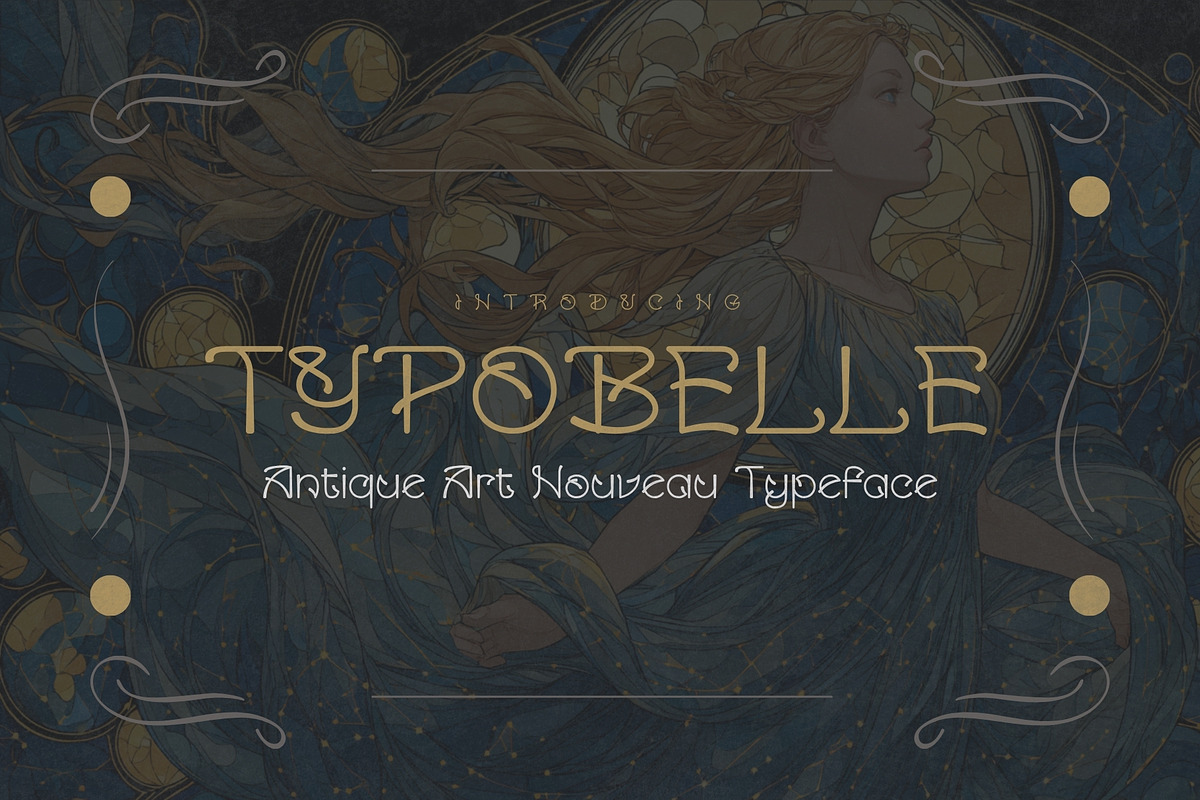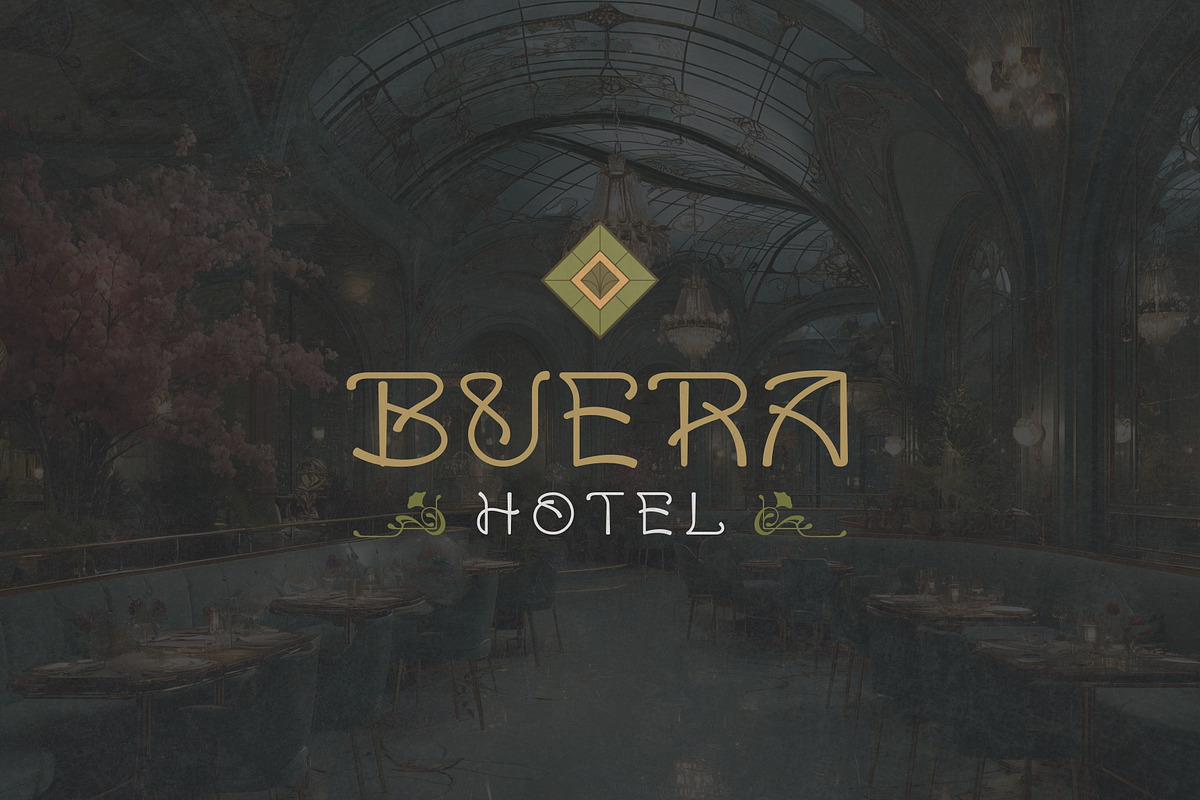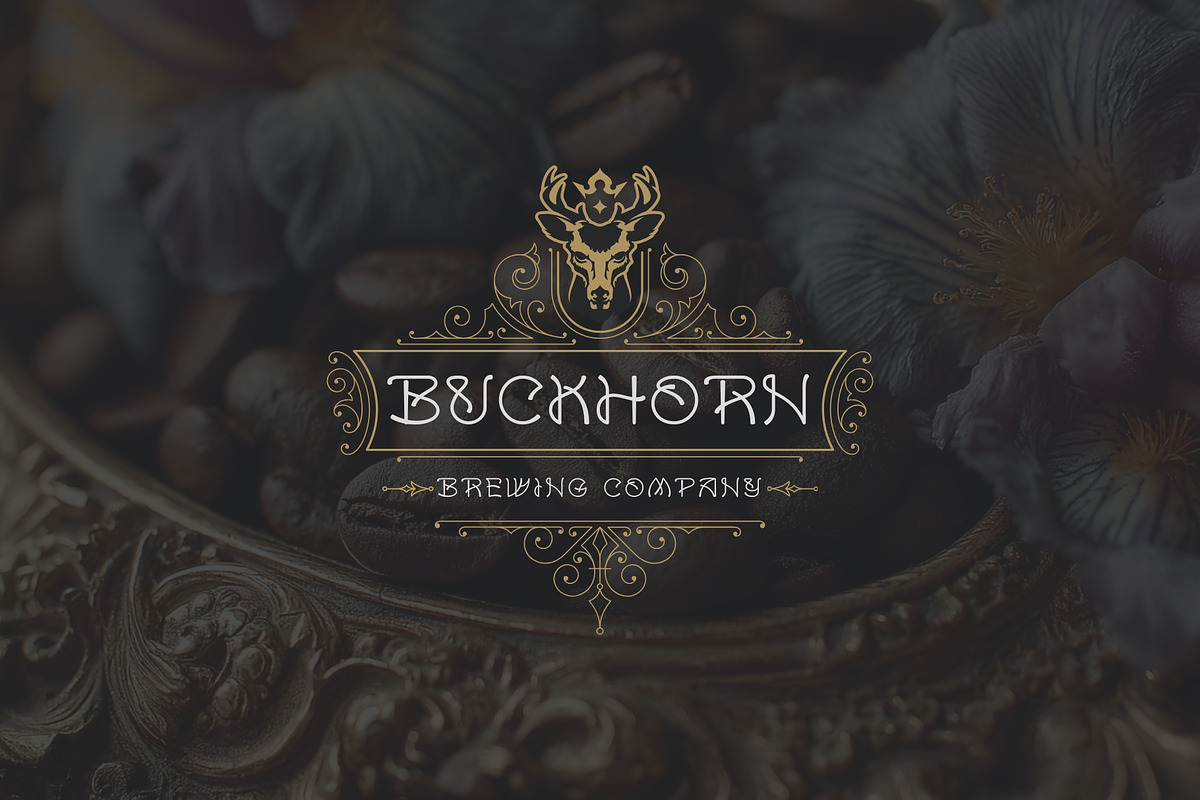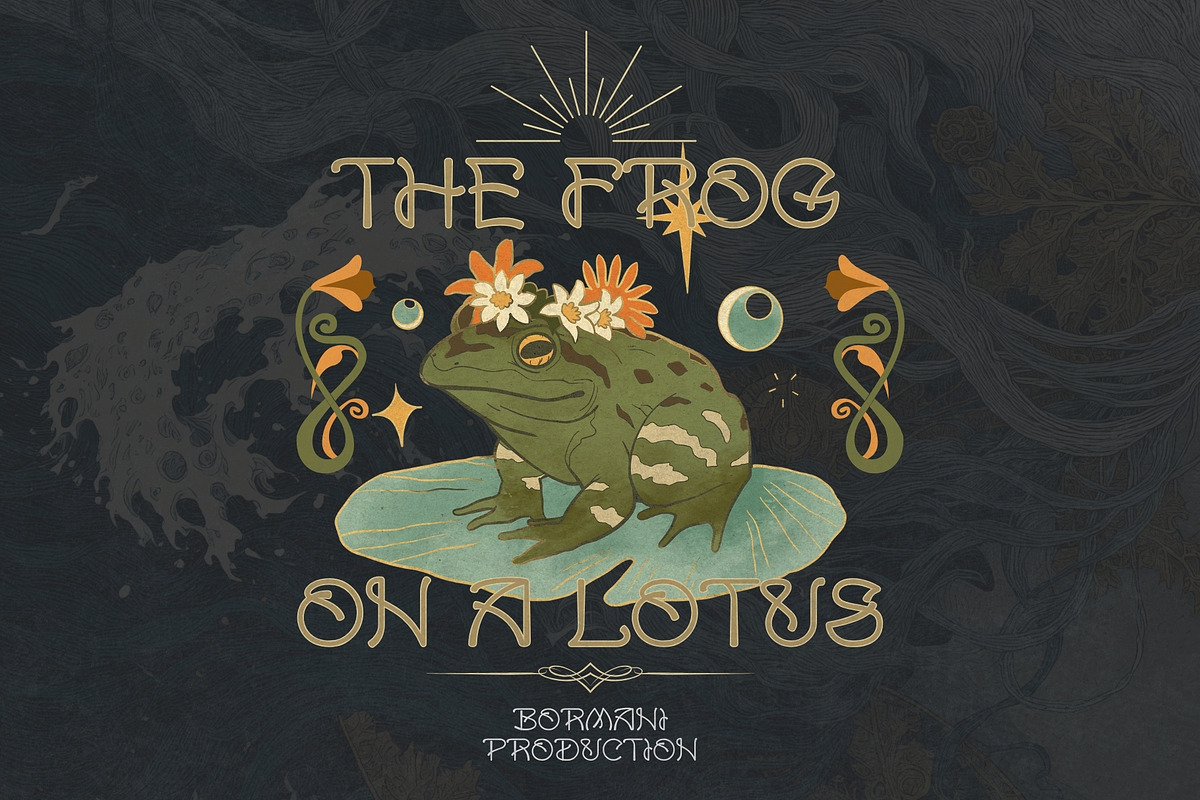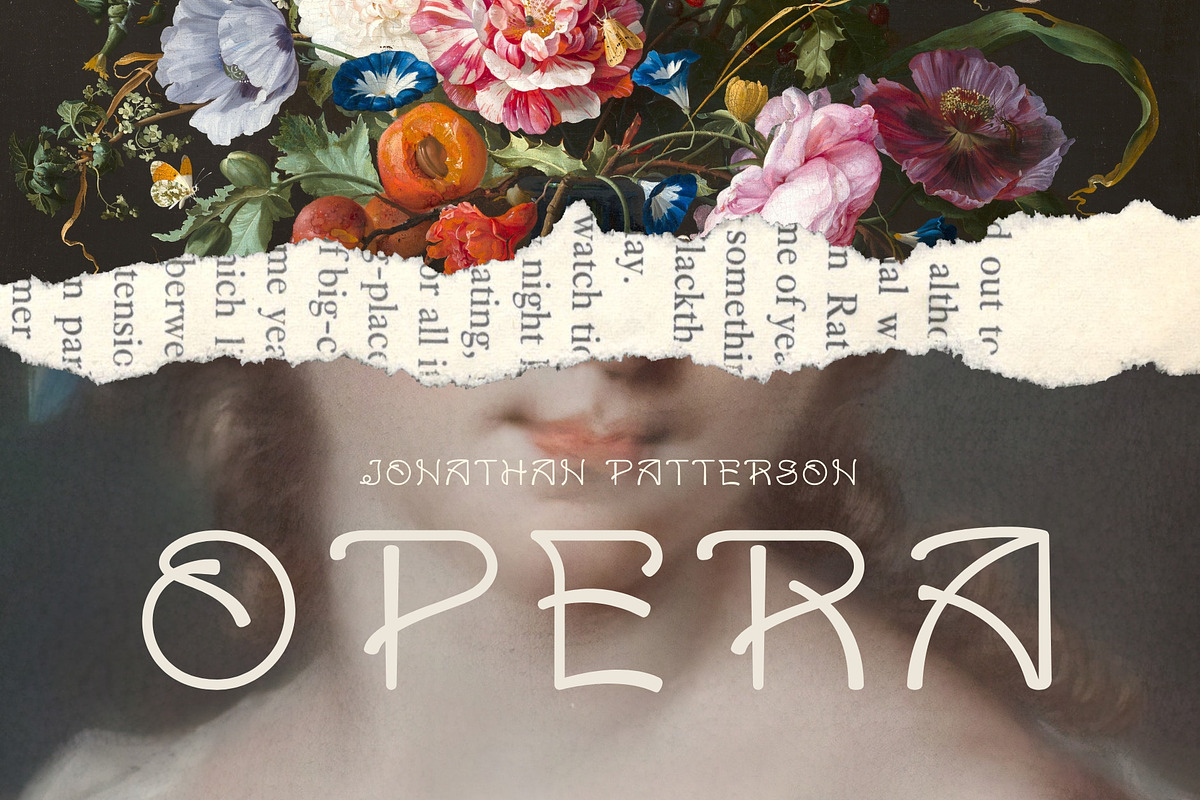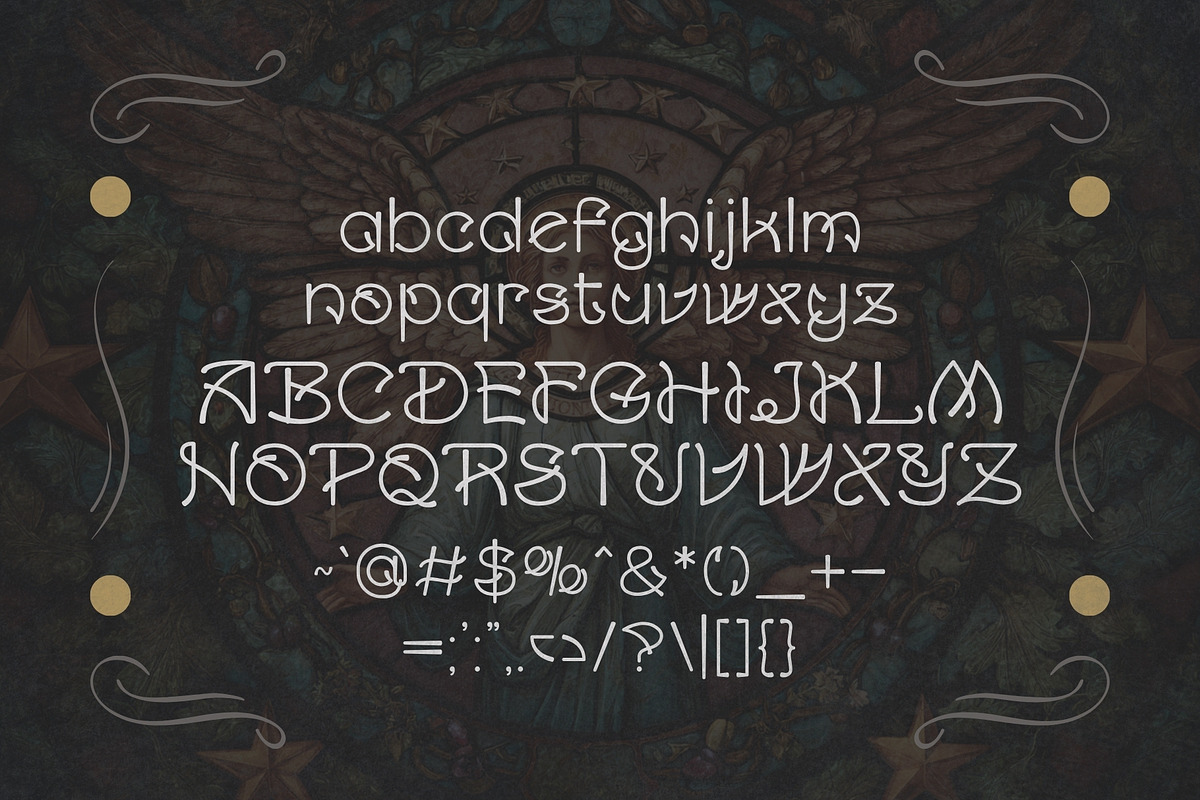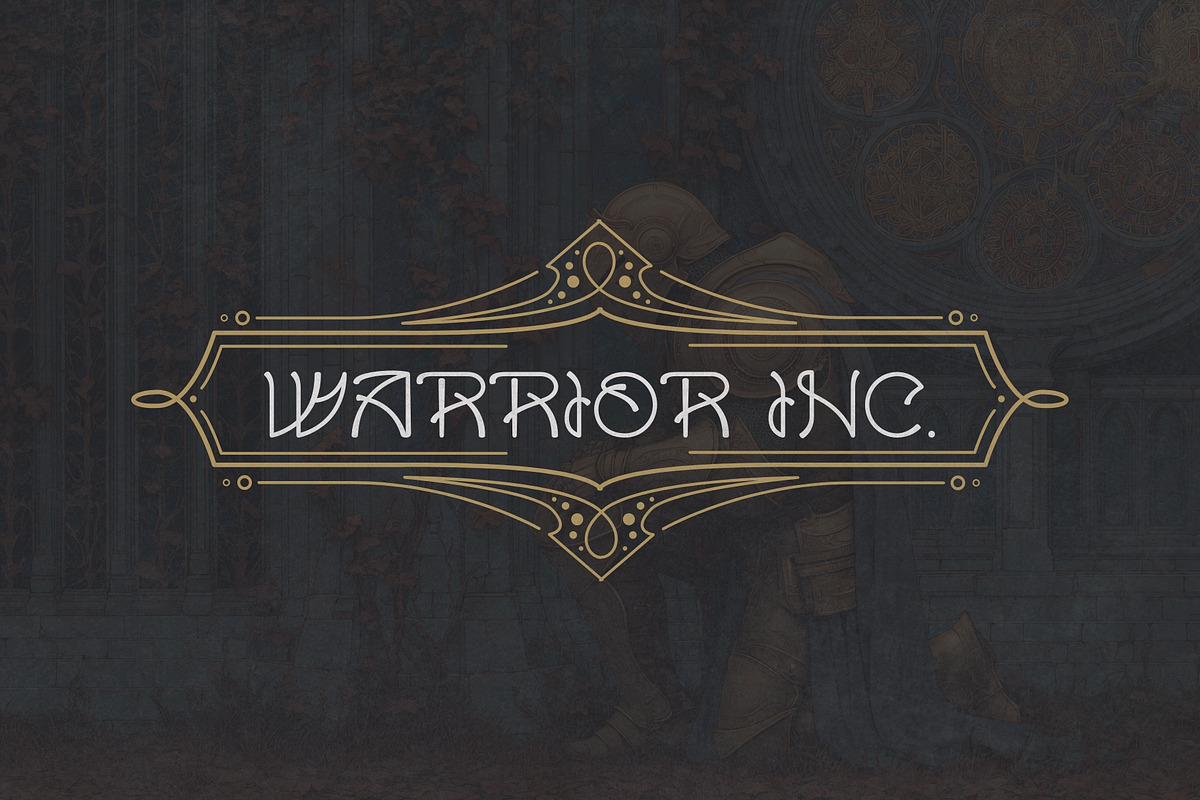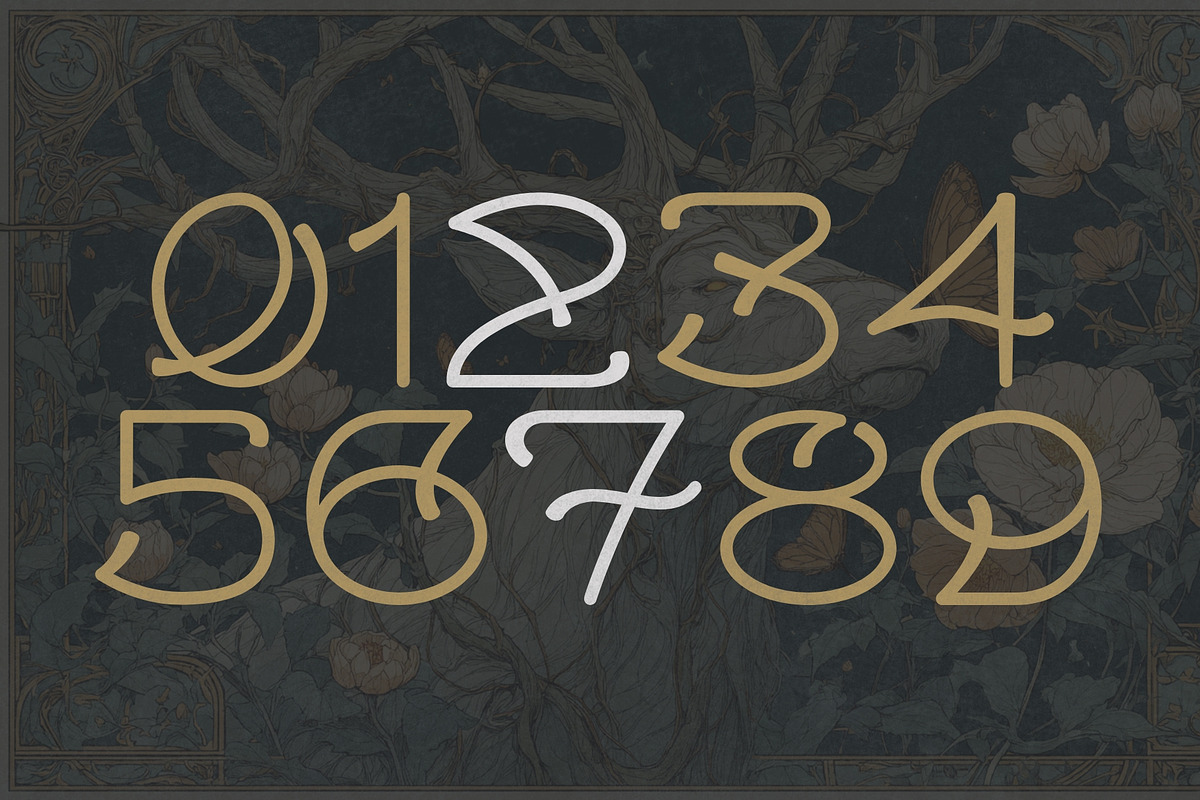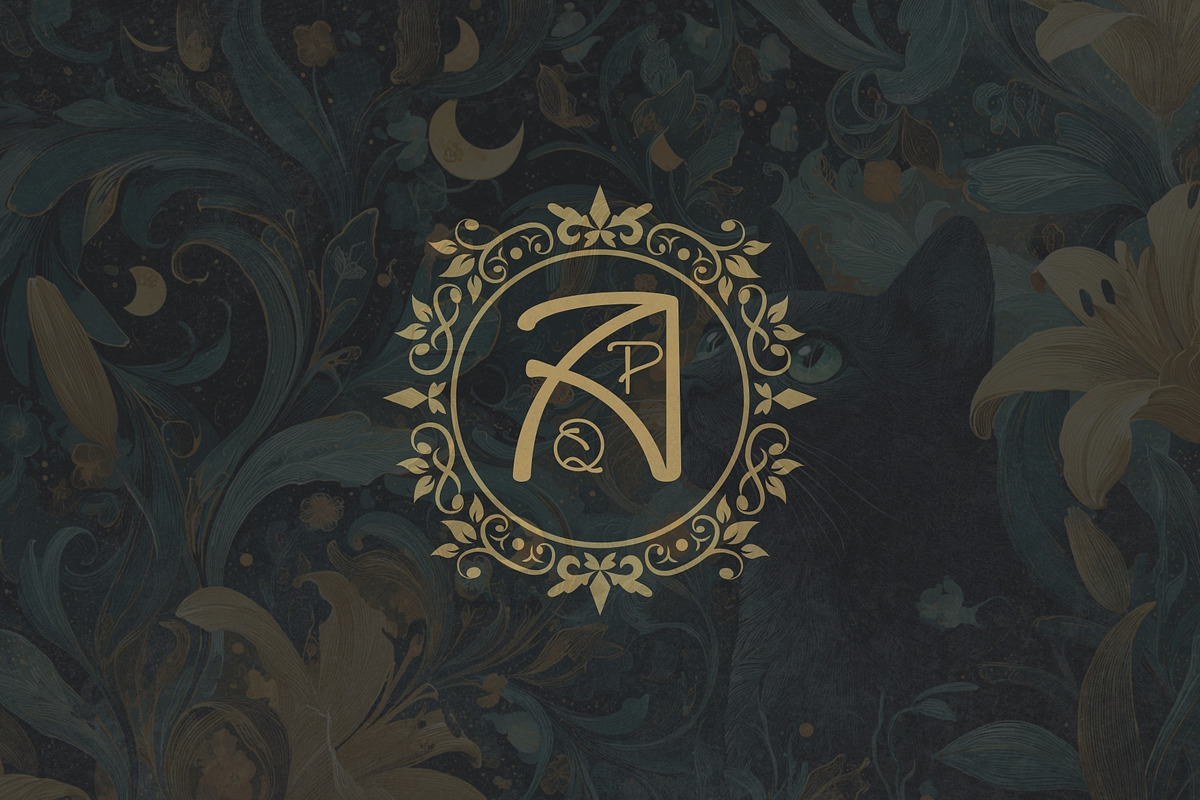
Typobelle - Art Nouveau Typeface
Introducing Typobelle, a stunning Art Nouveau typeface that captures the soul of elegance and the essence of decorative beauty. With its graceful curves, delicate strokes, and exquisitely thin letterforms, Typobelle is a refined celebration of vintage charm and timeless sophistication.
Designed to echo the ornamental finesse of the early 1900s, Typobelle breathes new life into the visual poetry of the Art Nouveau movement. Its enchanting forms and fluid shapes make it a perfect choice for wedding invitations, luxury branding, logo design, packaging, editorial headlines, and any creative project that seeks a touch of historical glamour fused with modern minimalism.
Typobelle is not just a font, it’s a statement of elegance. Whether you're crafting a romantic invitation or a bold brand identity, this typeface brings an air of sophistication that feels both nostalgic and fresh.
Let your words dance with the beauty of a bygone era. Let them speak with Typobelle.